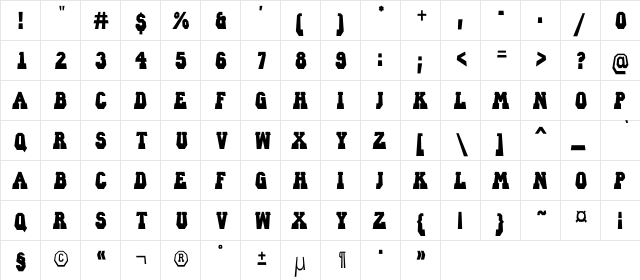
a_CampusPrLying Regular
Design Context for a_CampusPrLying Typeface
a_CampusPrLying is a composed and adaptable typeface that performs quietly and consistently across a wide range of design contexts.